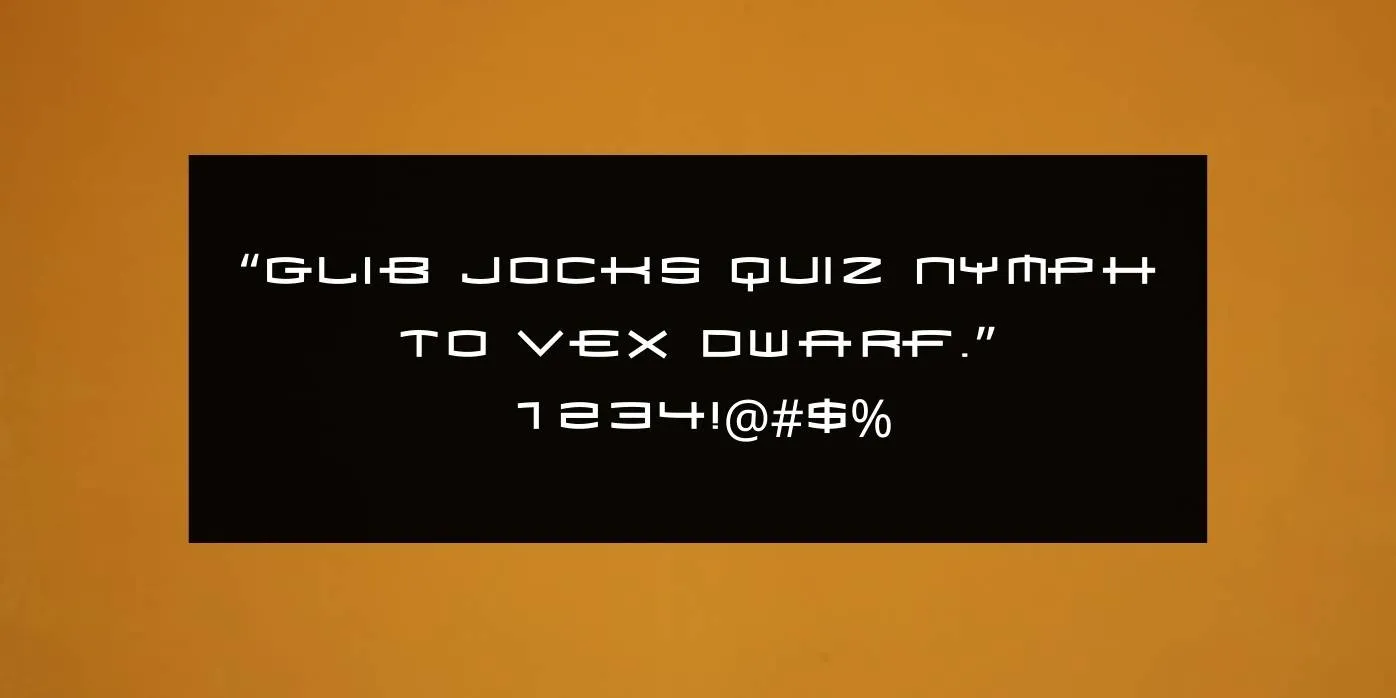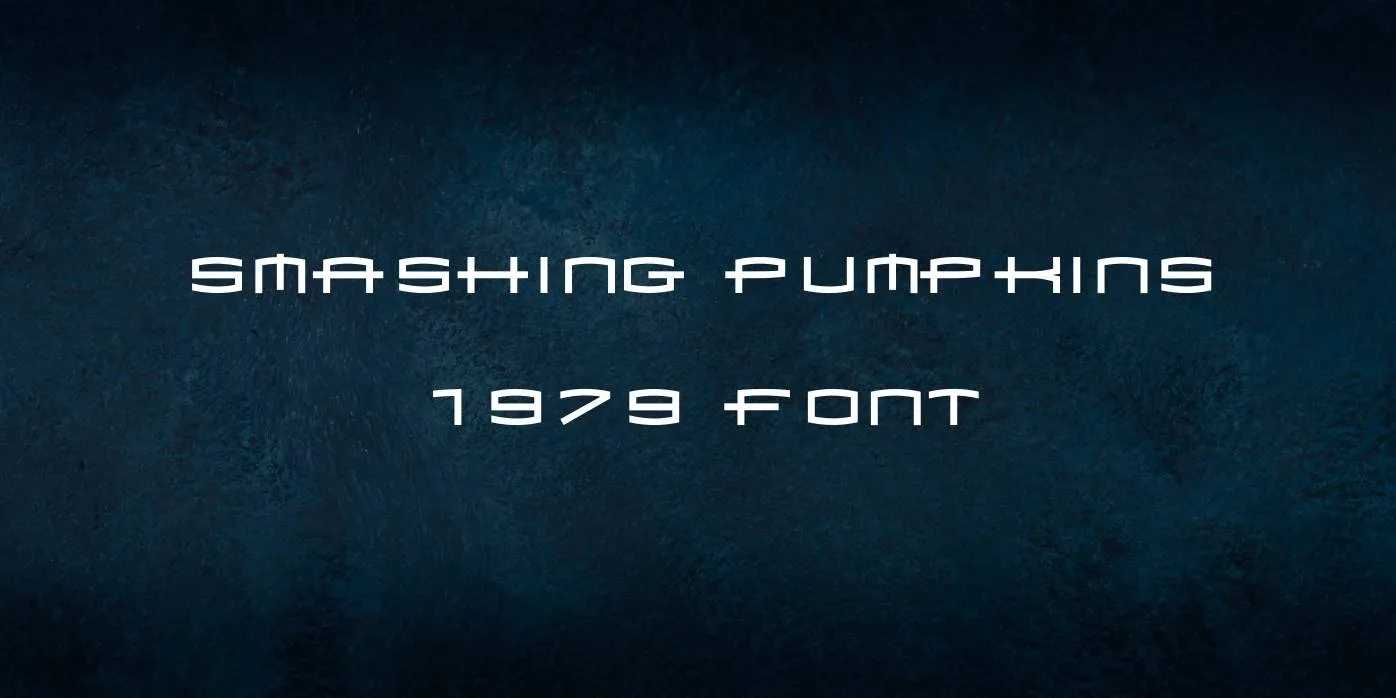
Smashing Pumpkins 1979 Font
The Smashing Pumpkins 1979 Font text style may be an extraordinary choice to extend the unique quality of your venture. Although the typography is conventional, the essential components are great. Smashing Pumpkins is the idealized textual style for all your fun plans. The font subfamily is Regular.
The text style fashion may change depending on the letters chosen. This typeface is very close to the captain america font. A few textual styles don’t acknowledge unique characters or were created for a one-off activity. Through the picture underneath, you’ll be able to see the concept of each letter.
Moreover, you’ll check the typography of all the letters underneath or take the test online sometime recently downloading the font. Usage You’ll utilize the Smashing pumpkins 1979 Typeface to form curiously plans, covers, shop and store names, and logos. Too, the Smashing Pumpkins text style is idealized for branding ventures, houseware plans, item bundling, or essentially as a smart content overlay on any foundation image. To assess the typeface, in this segment there’s a set of which we select 31 uncommon characters or with emphasis, 26 letters of the letter set in upper and lower case and the numbering from to 10.
Smashing pumpkins 1979 Typeface is the unique text style for all your fun plans. The text style subfamily is Customary Where can I Smashing Pumpkin Font 1979? You’ll utilize the Smashing pumpkins 1979 Typeface to form curiously plans, covers, shop and store names, and logos. Too, the Smashing Pumpkins text style is idealized for branding ventures, houseware plans, item bundling, or essentially as a smart content overlay on any foundation image.